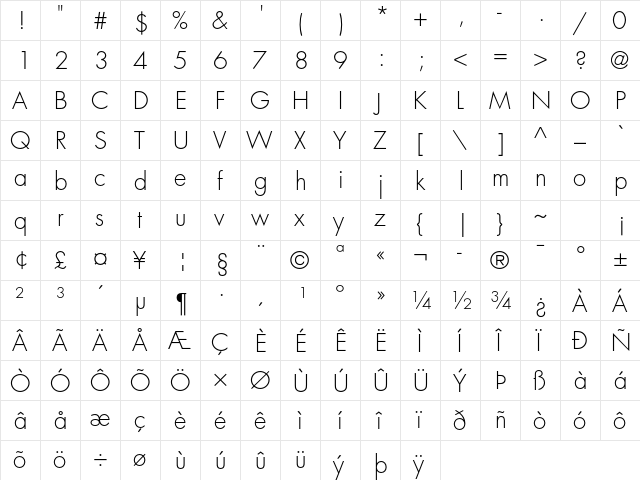
Futura Std Light Font Preview
Futura Std Light
Futura Std Light Font Details
| Designer | Paul Renner |
Design Context for Futura Std Typeface
Futura Std channels digital-age aesthetics through its sharp, structured letterforms — ideal for brands that want to signal innovation. The delicate stroke weight brings airiness and refinement to layouts.
Pro Tip: Try Futura Std with generous letter-spacing in UI labels and navigation — the geometric forms benefit from room to breathe.